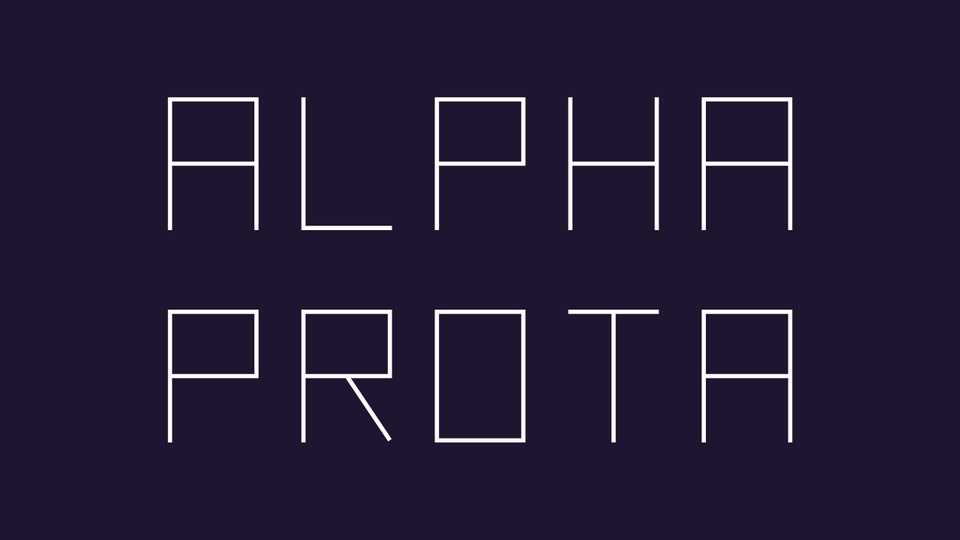
Download Alpha Prota font, a clean and minimalist display typeface based on angular shapes. Alpha Prota font works best for large sizes, is perfect for headlines, posters, games and album artworks.